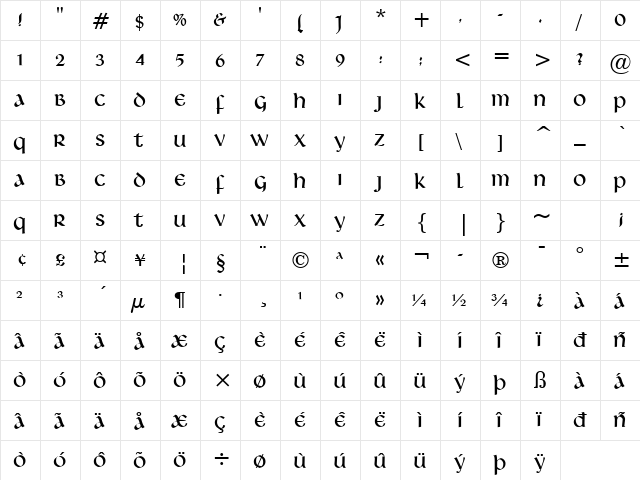
Leo Normal
Design Context for Leo Typeface
Leo is a composed and adaptable typeface that performs quietly and consistently across a wide range of design contexts.